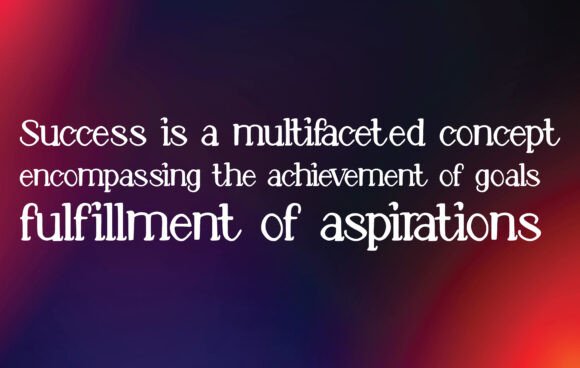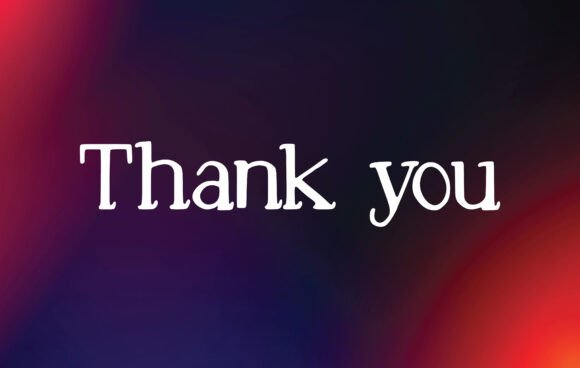
Discover the Beauty of Abner Font: Elevate Your Designs with this Lovely Handwritten Font
Are you a designer or crafter looking for a font that can take your creative ideas to the next level? Look no further than Abner Font, a lovely and beautiful handwritten font that is sure to impress. With its unique and elegant style, Abner Font is the perfect choice for creating eye-catching logos, branding, and quotes that will leave a lasting impression on your audience.
What Makes Abner Font So Special?
Abner Font is a carefully crafted handwritten font that boasts a distinctive and charming style. Its beautiful lettering and flowing curves make it perfect for a wide range of design projects, from logos and branding to quotes and social media graphics. Whether you’re looking to add a touch of elegance or a dash of personality to your designs, Abner Font is the ideal choice.
The Benefits of Using Abner Font
So why choose Abner Font over other fonts? Here are just a few benefits of using this amazing handwritten font:
- Unique and Eye-Catching: Abner Font is a one-of-a-kind font that is sure to grab attention. Its distinctive style will set your designs apart from the crowd and make them truly memorable.
- Elegant and Sophisticated: With its flowing curves and beautiful lettering, Abner Font adds a touch of elegance and sophistication to any design.
- Versatile: Abner Font is perfect for a wide range of design projects, from logos and branding to quotes and social media graphics.
- Easy to Read: Despite its elegant style, Abner Font is easy to read and understand, making it perfect for use in body text as well as headlines.
How to Use Abner Font in Your Designs
Using Abner Font in your designs is easy. Here are a few tips to get you started:
- Pair it with Other Fonts: Abner Font pairs perfectly with other fonts, such as sans-serif fonts like Arial or Helvetica. Experiment with different combinations to find the perfect look for your design.
- Use it for Headlines: Abner Font is perfect for use in headlines and titles. Its elegant style and flowing curves make it sure to grab attention.
- Add a Personal Touch: Abner Font is a great way to add a personal touch to your designs. Use it to create custom logos, branding, and quotes that reflect your unique style.
Why Designers and Crafters Love Abner Font
Abner Font has quickly become a favorite among designers and crafters. Here are just a few reasons why:
- High-Quality Design: Abner Font is a high-quality font that is designed with care and attention to detail.
- Unique Style: Abner Font boasts a unique and distinctive style that sets it apart from other fonts.
In conclusion, Abner Font is a lovely and beautiful handwritten font that is sure to take your creative ideas to the highest level. With its unique and elegant style, Abner Font is the perfect choice for creating eye-catching logos, branding, and quotes that will leave a lasting impression on your audience. Whether you’re a designer or crafter, Abner Font is a must-have font that is sure to become a favorite in your collection.